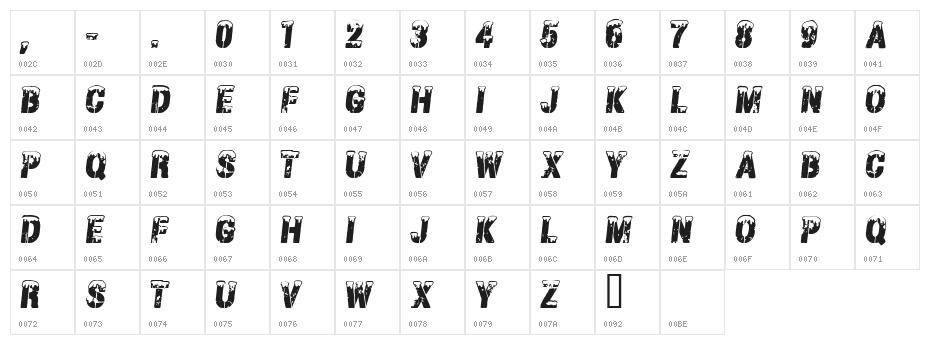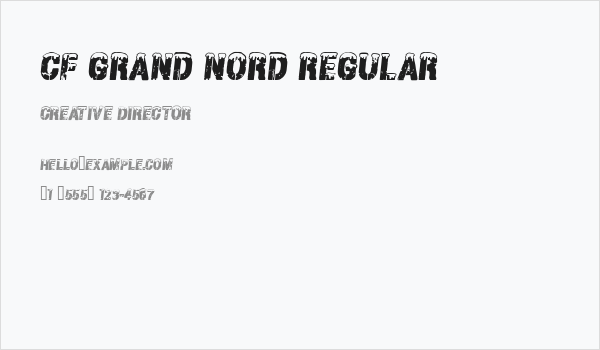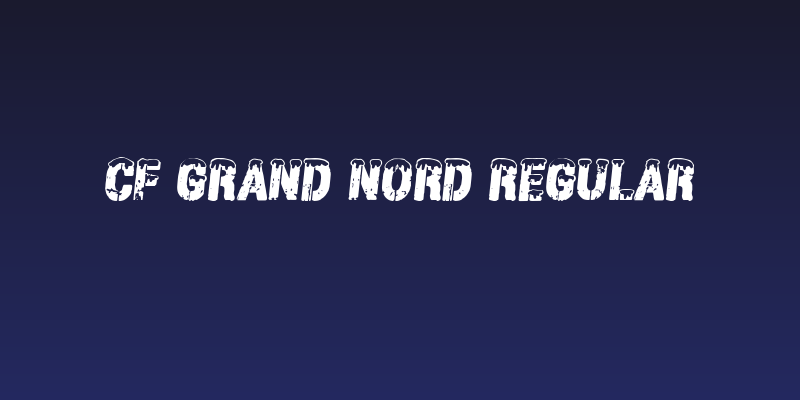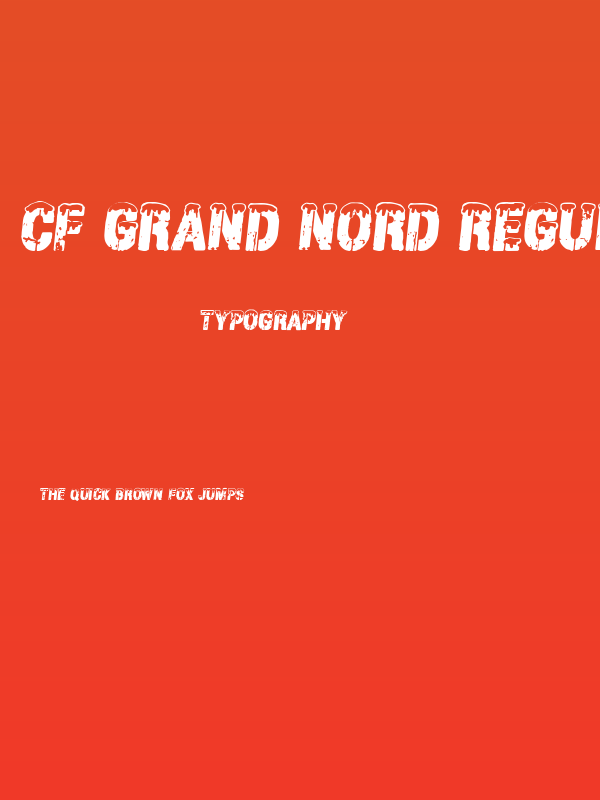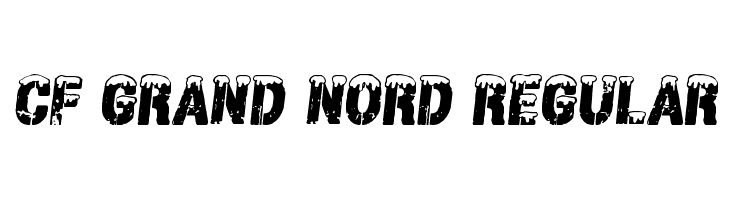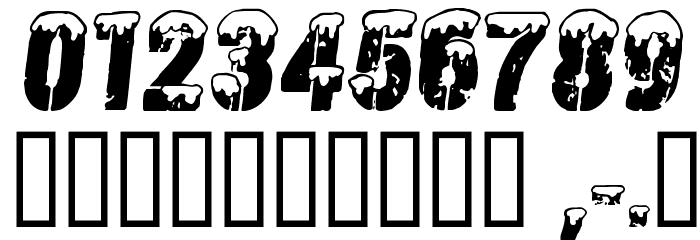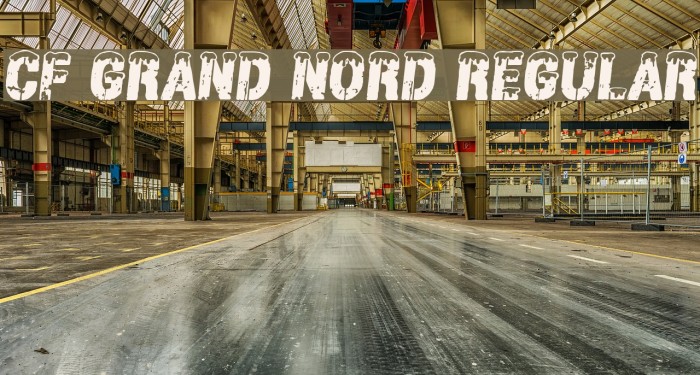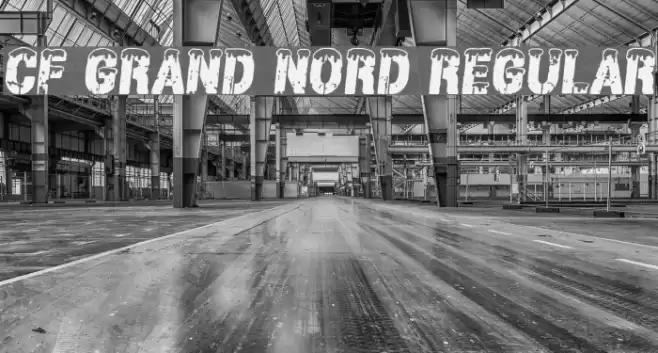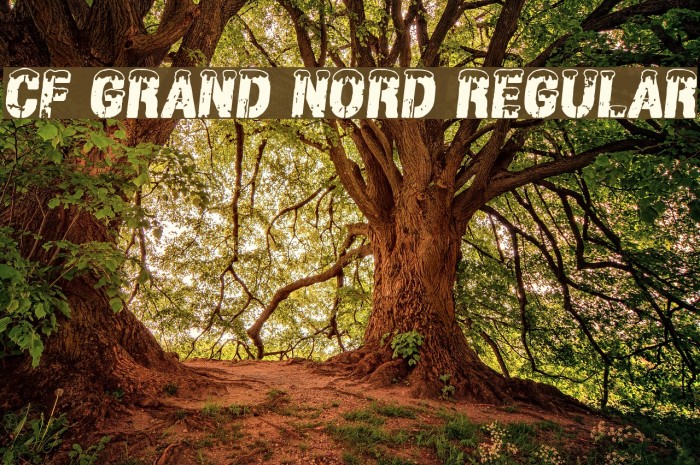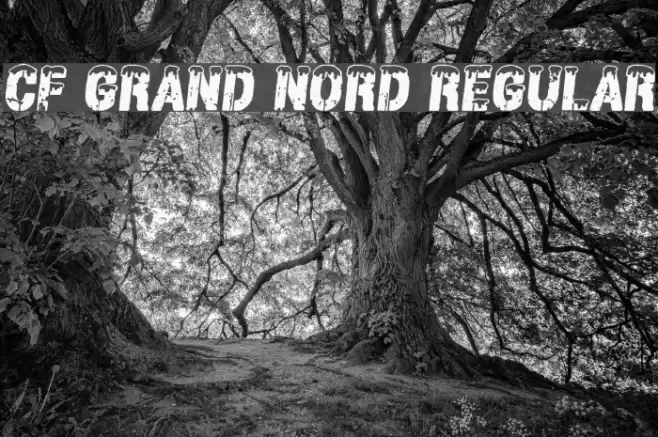
CF Grand Nord Regular Font
CF Grand Nord Regular Description
This font features a rugged, distressed appearance, giving it a weathered and vintage feel. The characters are bold and impactful, with a textured look that suggests wear and tear, making it ideal for designs that require a gritty or industrial aesthetic. The uppercase letters are prominent, and the numbers follow the same style, ensuring consistency across different uses. The font's unique style is perfect for creating eye-catching headlines or logos that need to stand out with a bold statement.
| Overall Style | Vintage |
| Proposed Projects | Ideal for posters, album covers, branding for outdoor or adventure-themed products, and any project needing a bold, gritty aesthetic. |